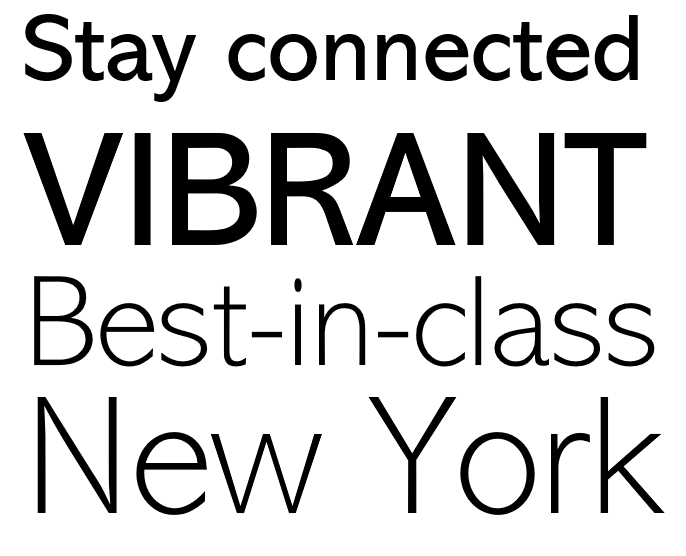
Abadi, introduced in 1988 offers a versatile sans serif design whose style lies somewhere between the humanist Gill Sans and the more rigidly lineal Helvetica. Subtle humanistic characteristics give Abadi a friendly appeal and contribute as much to the typeface's legibility as does its generous x-height. This legibility keeps the typeface usable in smaller point sizes. Available weights, from light to extra bold, give Abadi a wide range of graphic applications, from magazines, newspapers, packaging, advertising, to use even with television.
Designers | Ong Chong Wah |